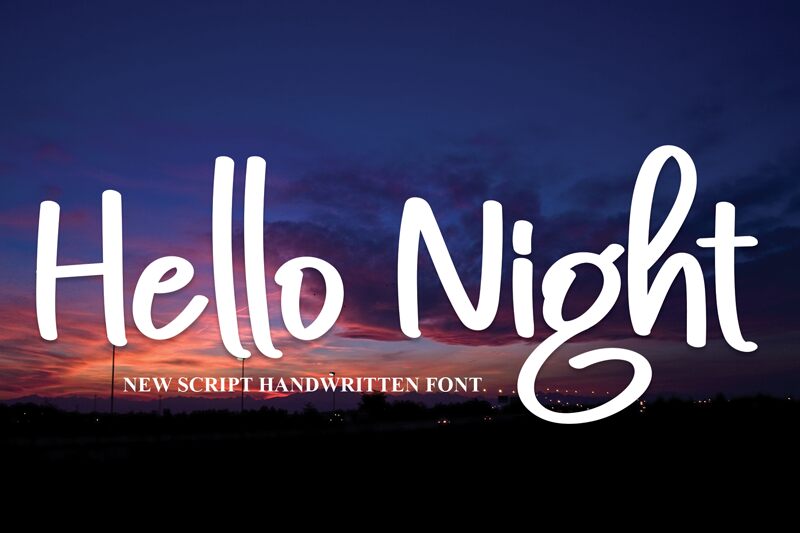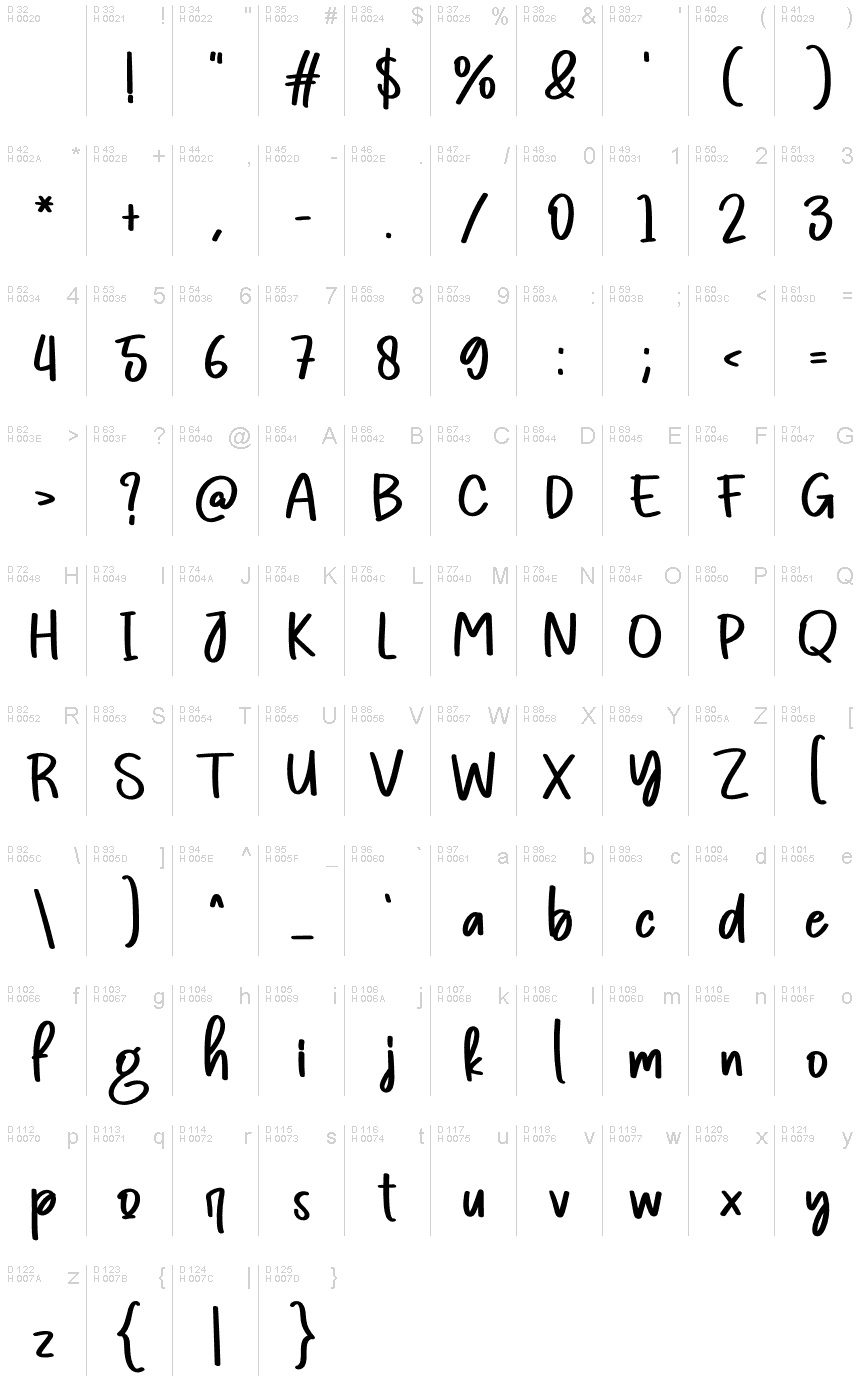
Hello Night
Hello Night, a delightful creation by Scratchones, is a semi-light, lovely handwritten font that will add a touch of elegance to any project.
Its flowing curves and charming imperfections make it perfect for wedding invitations, feminine branding, and romantic-themed designs. This font will also beautifully complement children's book illustrations, greeting cards, and quaint café menus. With Hello Night's dreamy aesthetic and gentle weight, your creations will effortlessly captivate the hearts of your audience.
Let this enchanting typeface be your go-to choice for projects that require a soft and whimsical appeal.
The latest style letters are perfect for wall displays, wedding invitations, social media post logos, advertisements, product packaging, product designs, labels, photography, watermarks, invitations, stationery, and any project that requires taste handwriting.